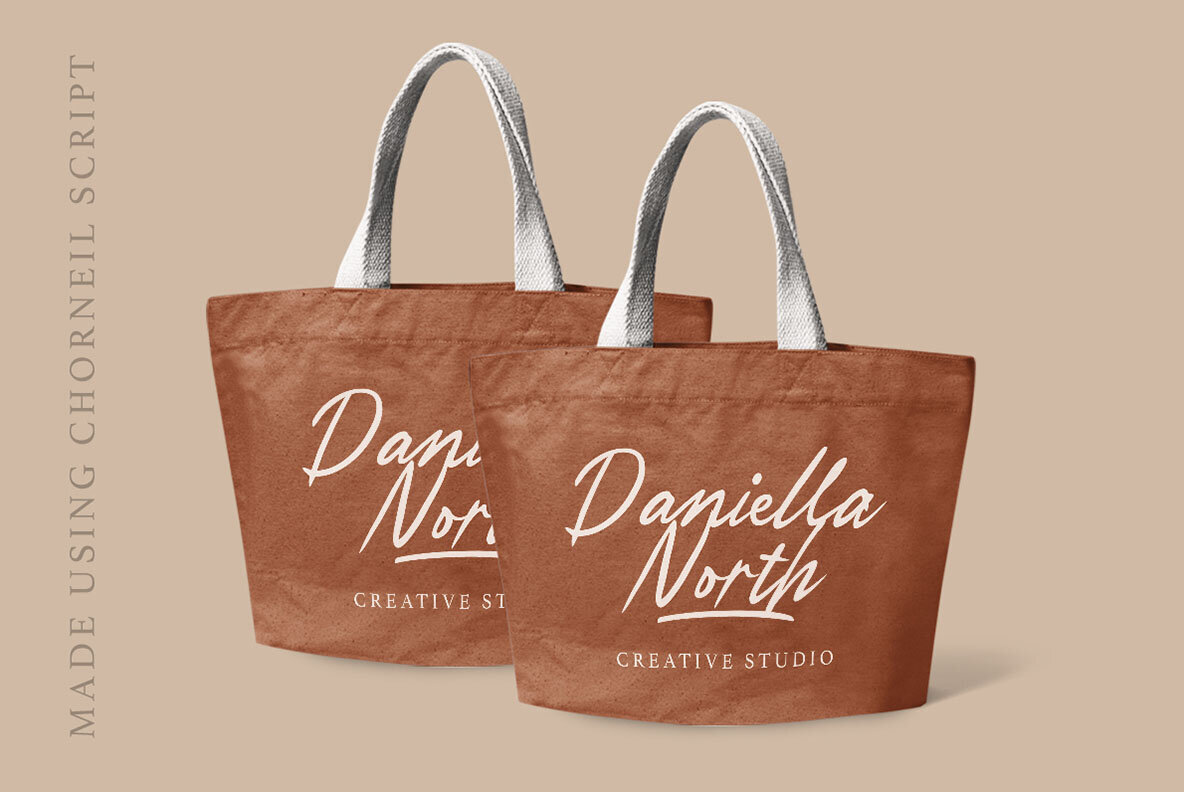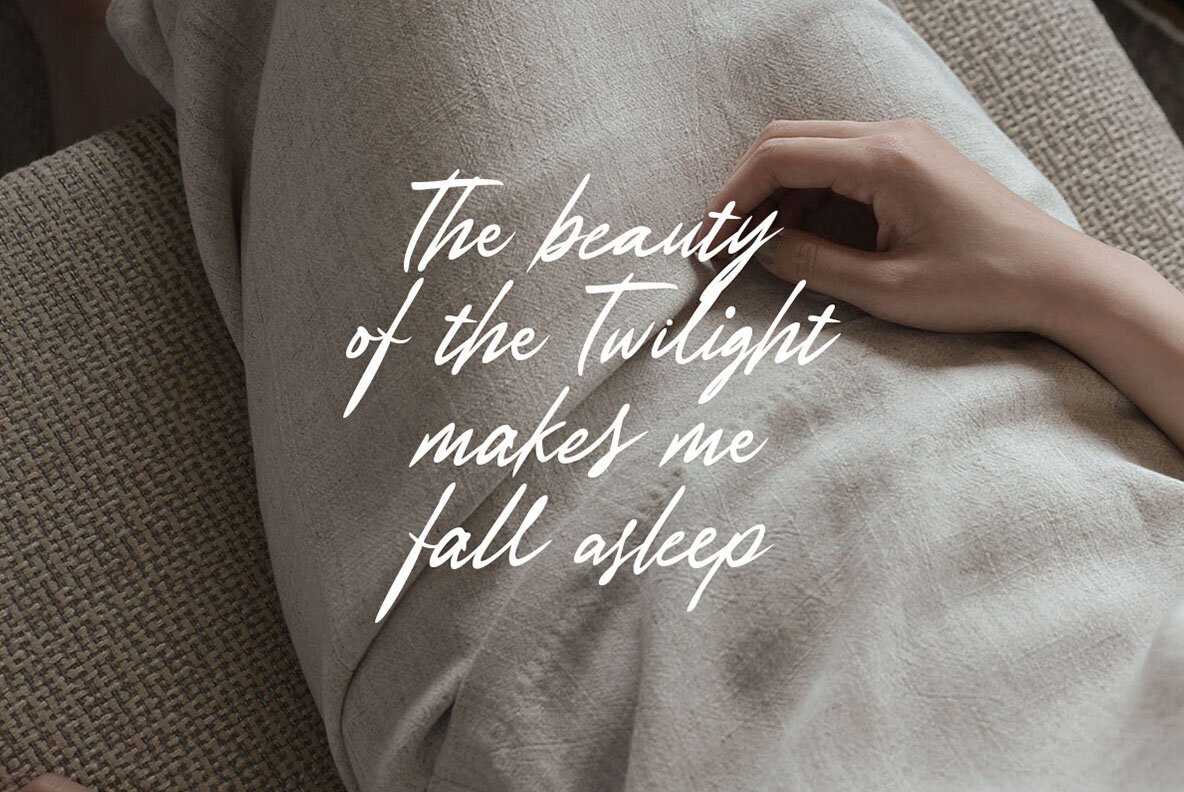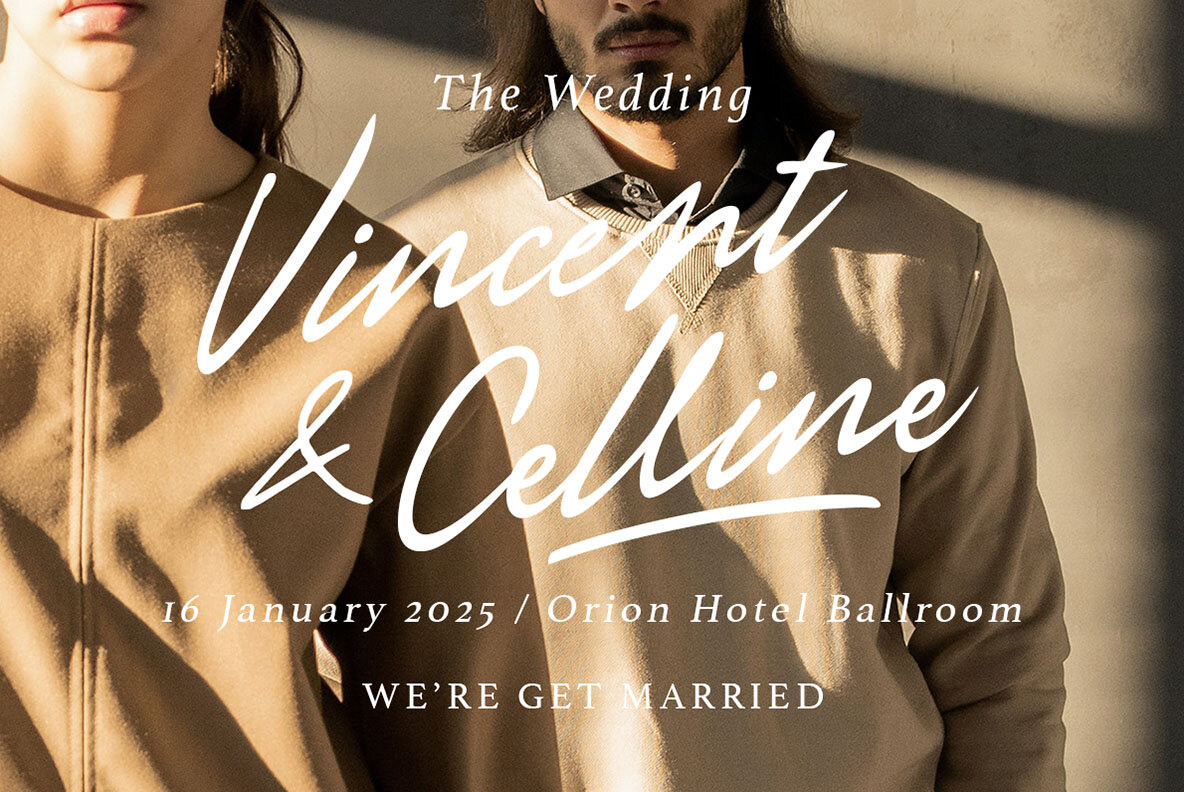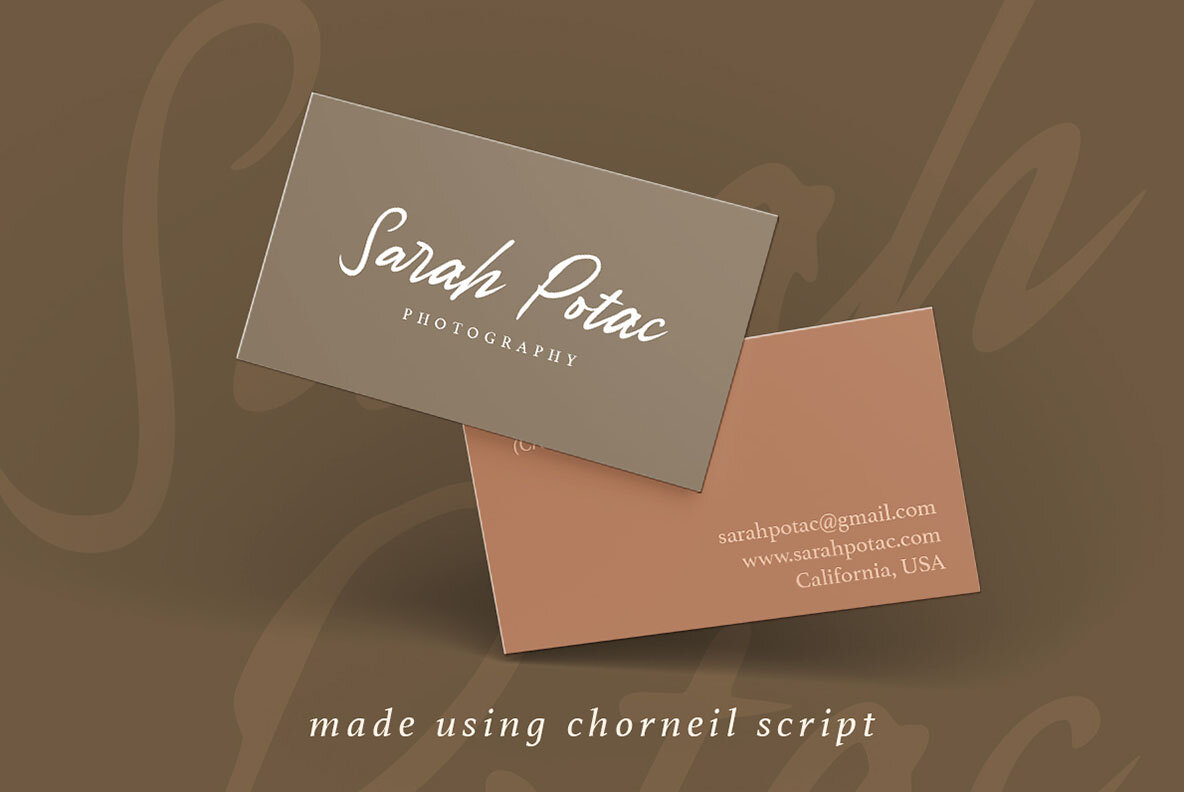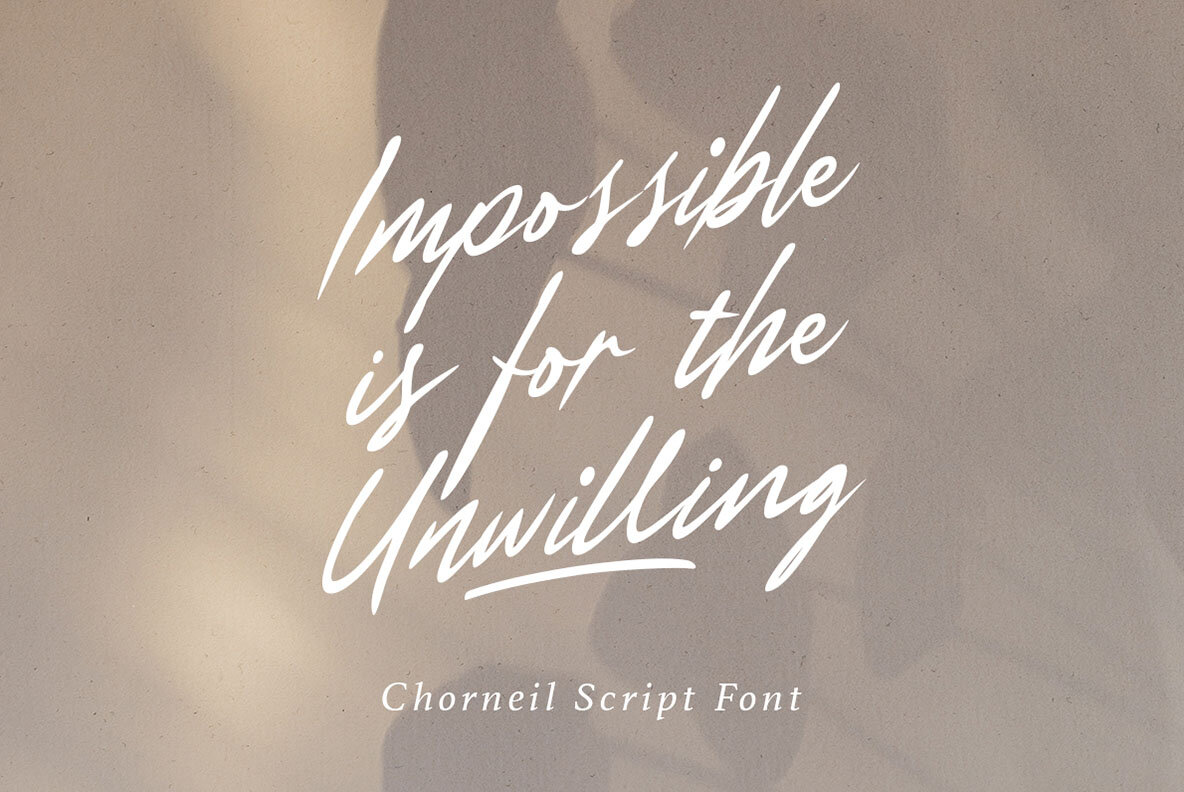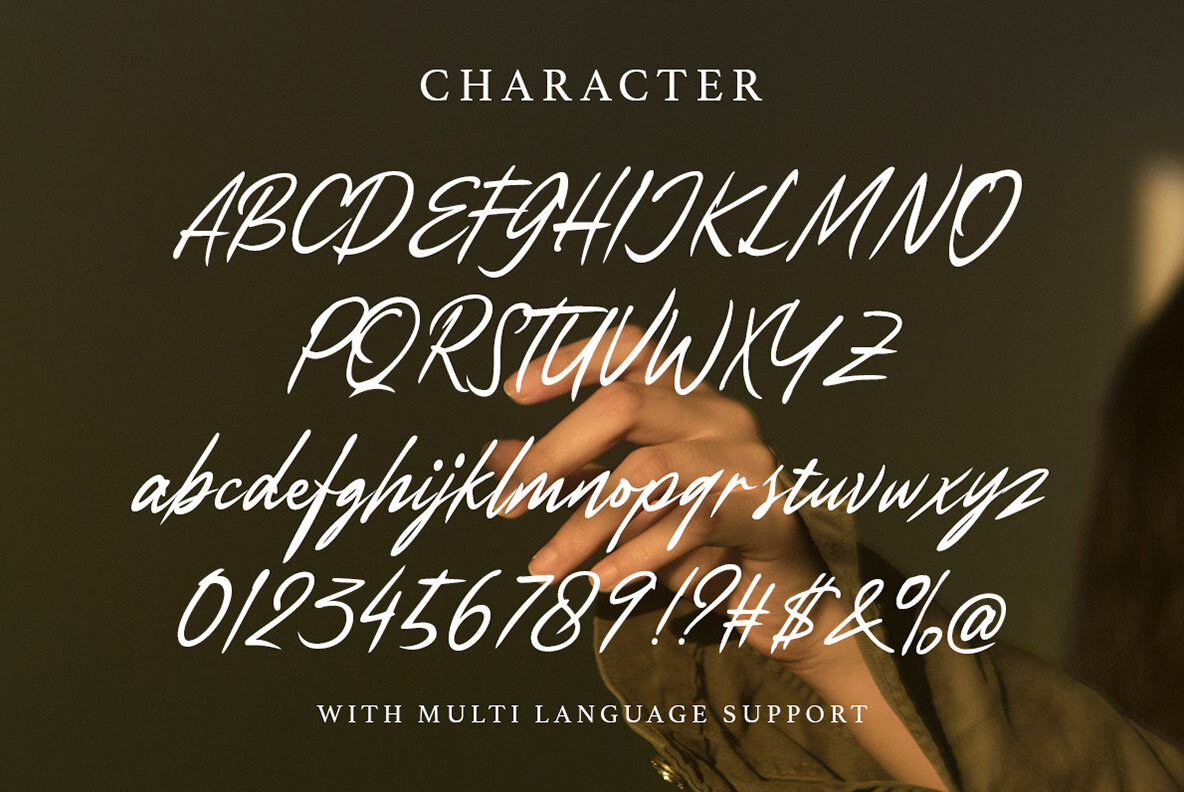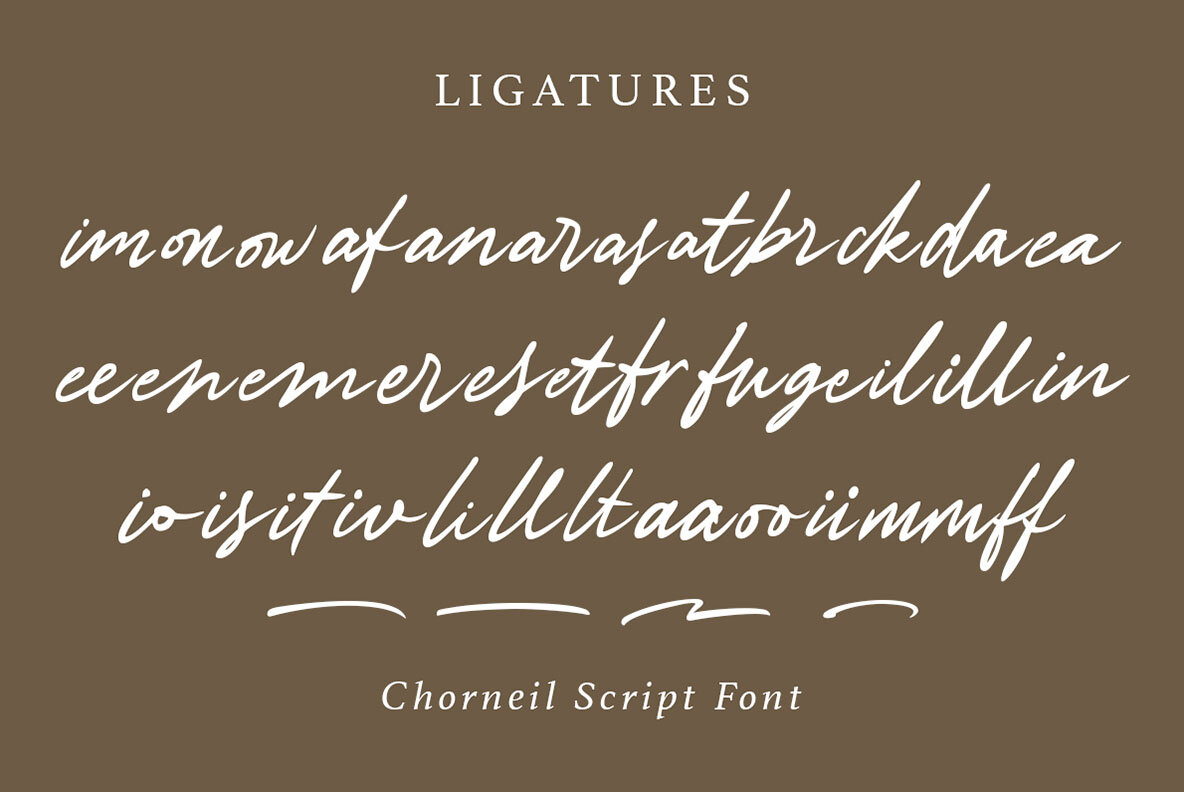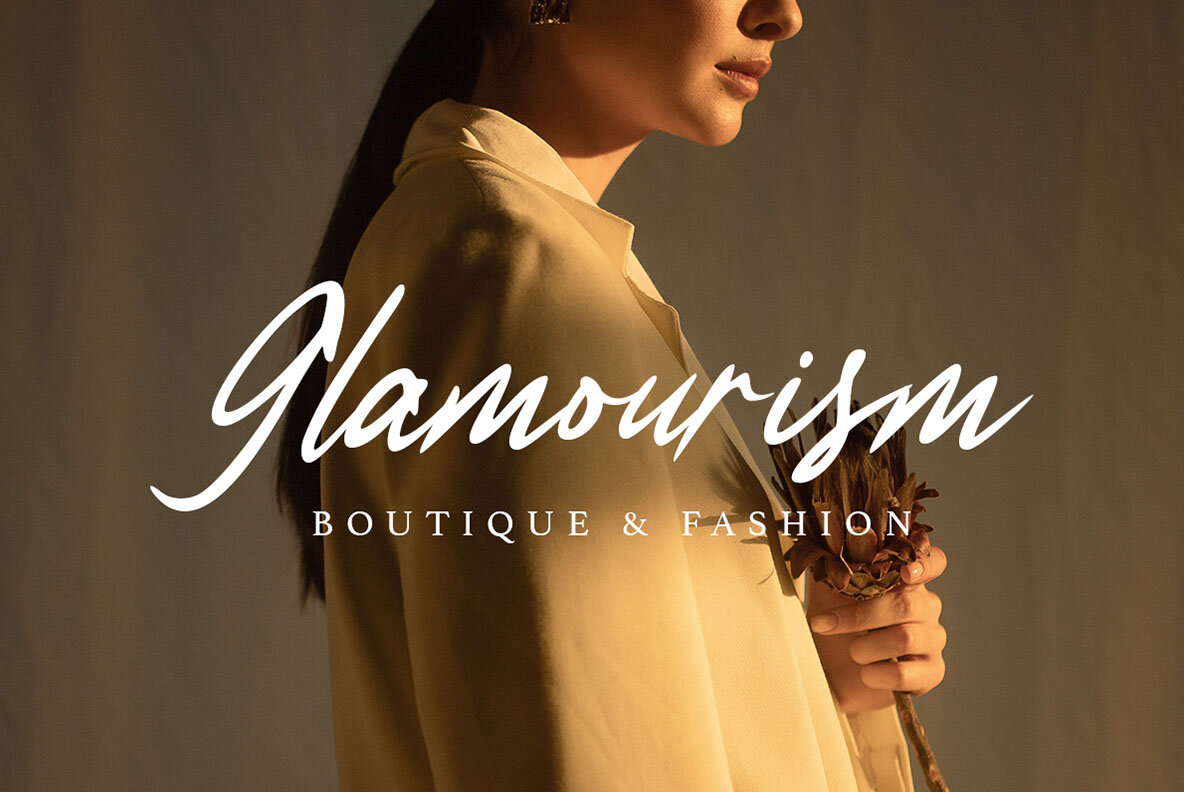
Chorneil Font
Chorneil Regular
Chorneil Script is a casual script with organic style. This type of font perfectly made to be applied especially in logo, and the other various formal forms such as invitations, labels, logos, magazines, books, greeting / wedding cards, packaging, fashion, make up, stationery, novels, labels or any type of advertising purpose. Features: We highly recommend using a program that supports OpenType features and Glyphs panels like many of Adobe apps and Corel Draw, so you can see and access all Glyph variations.